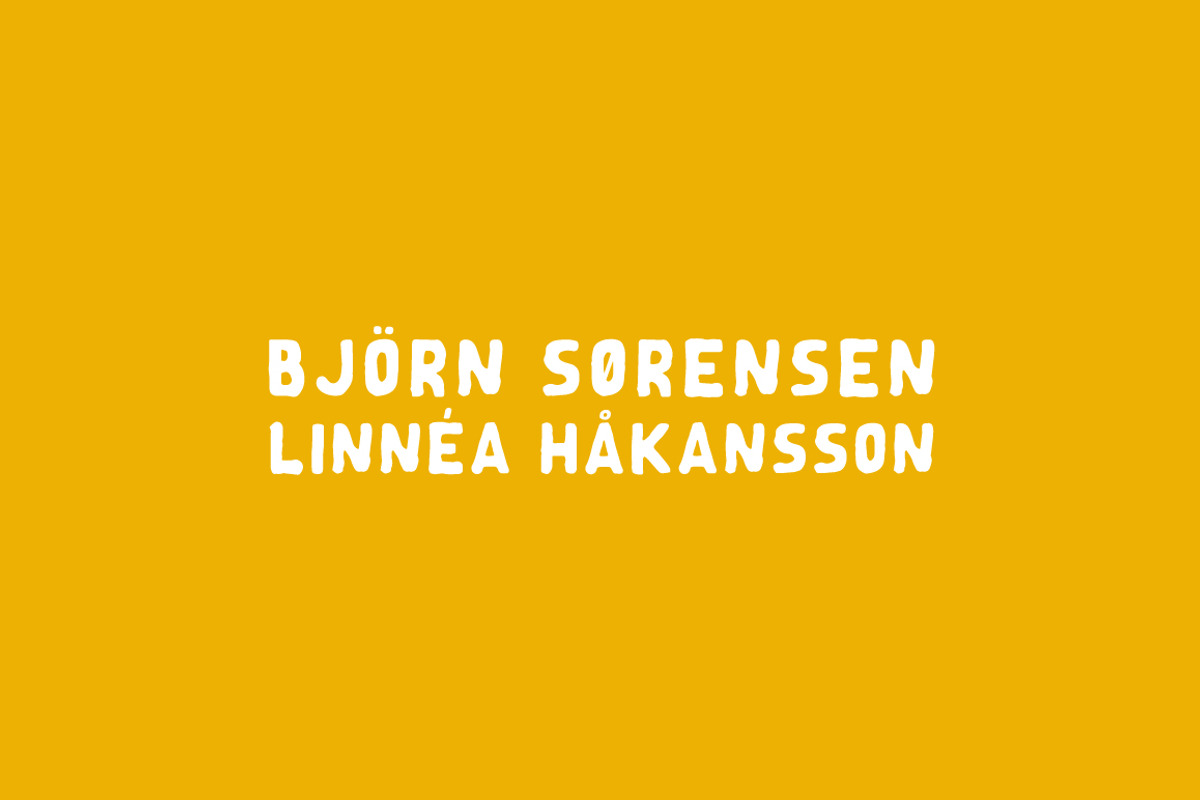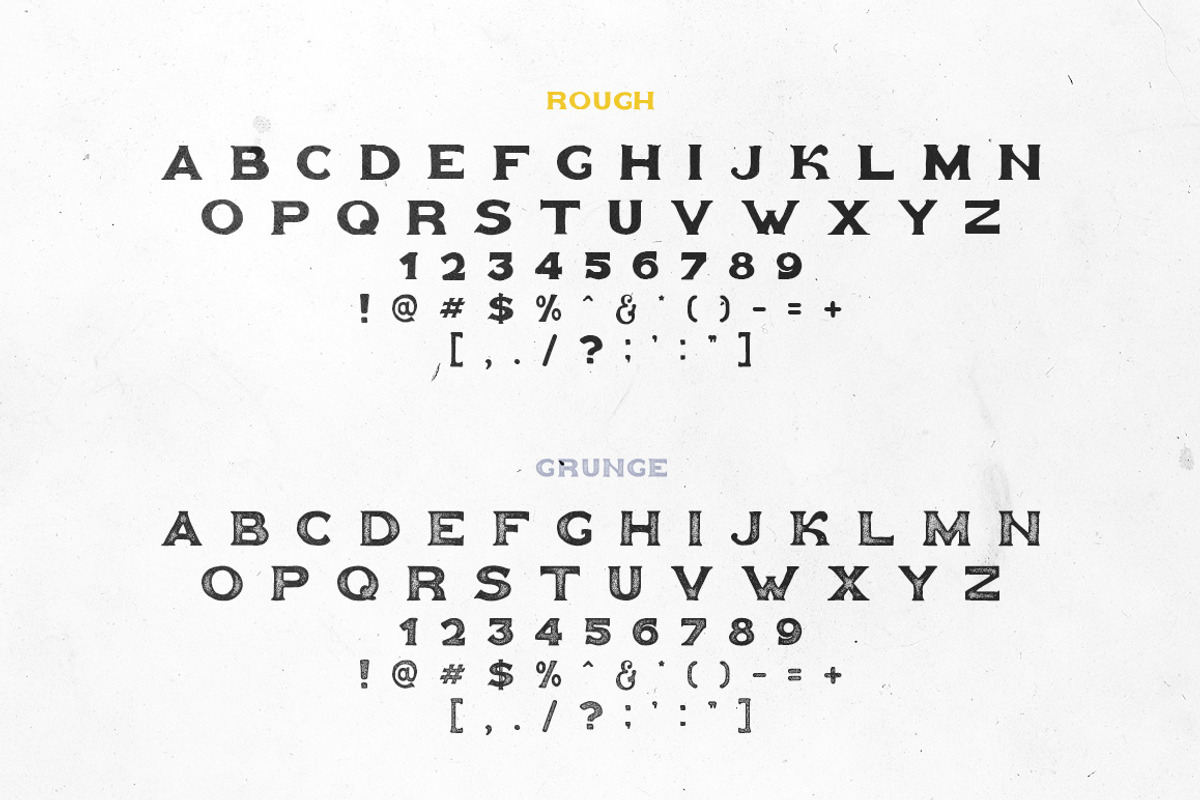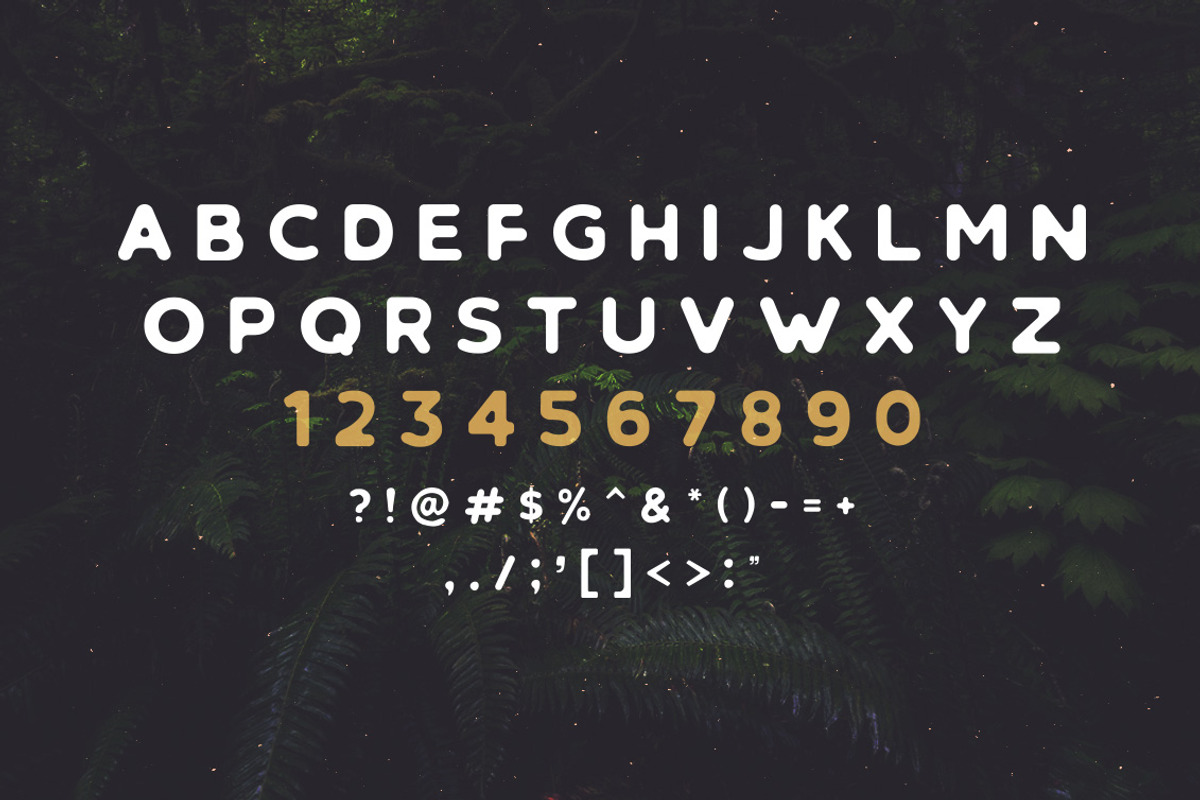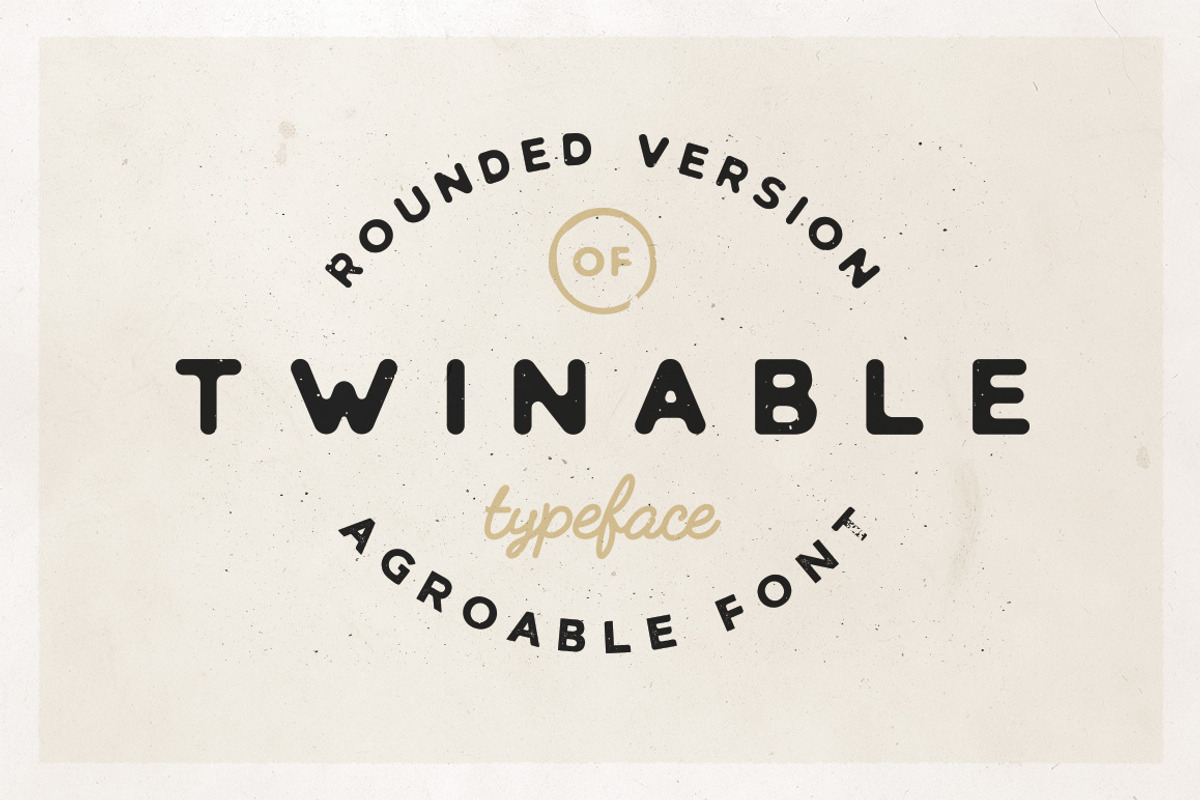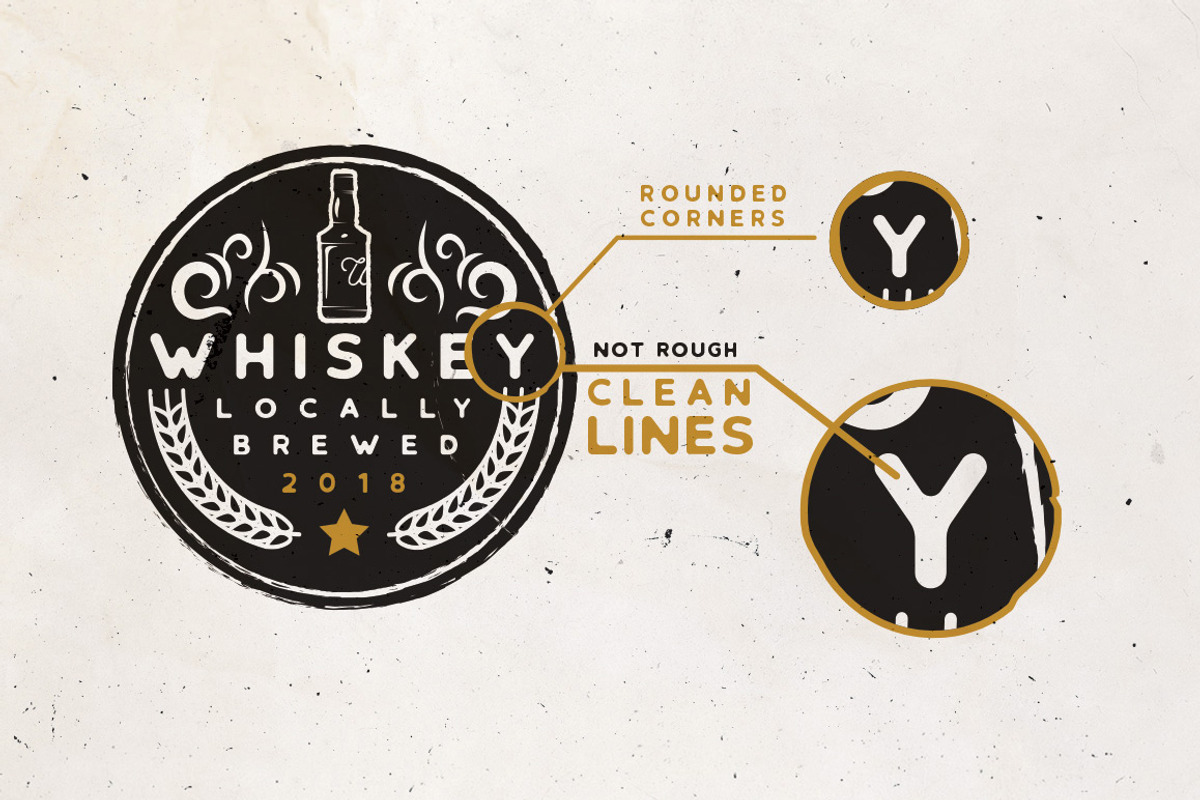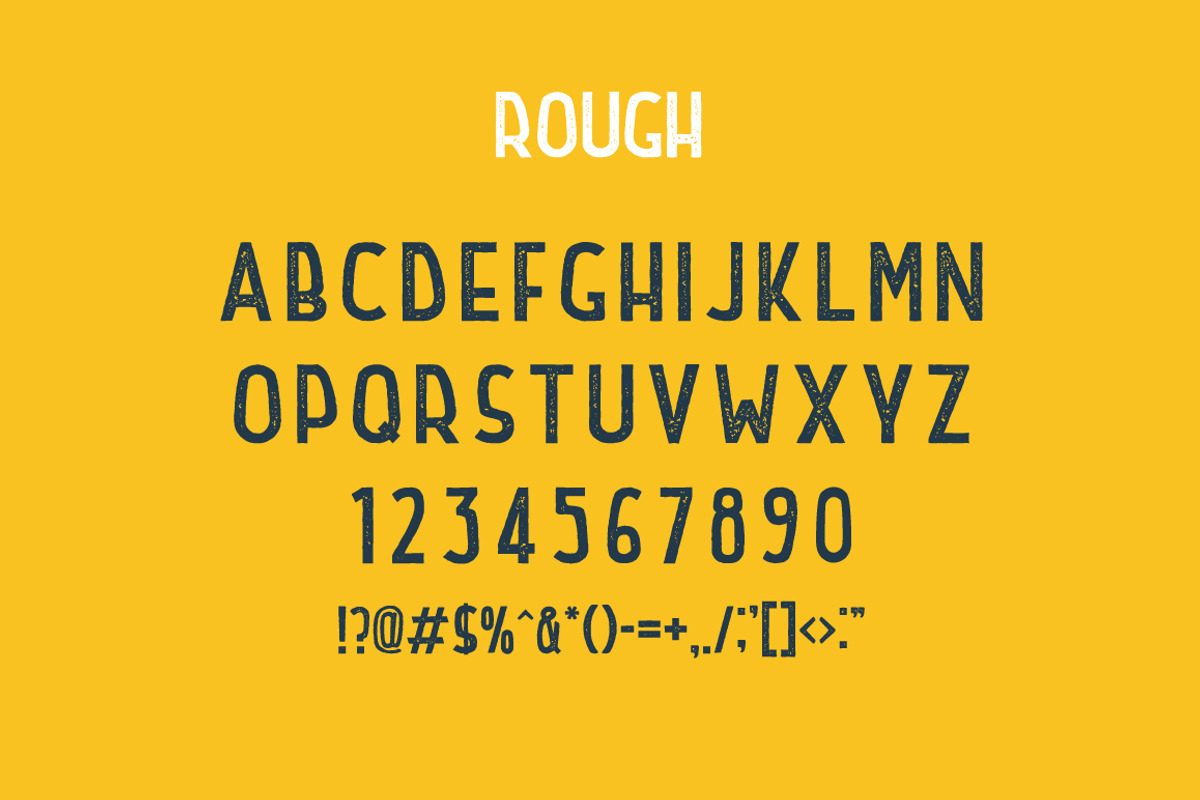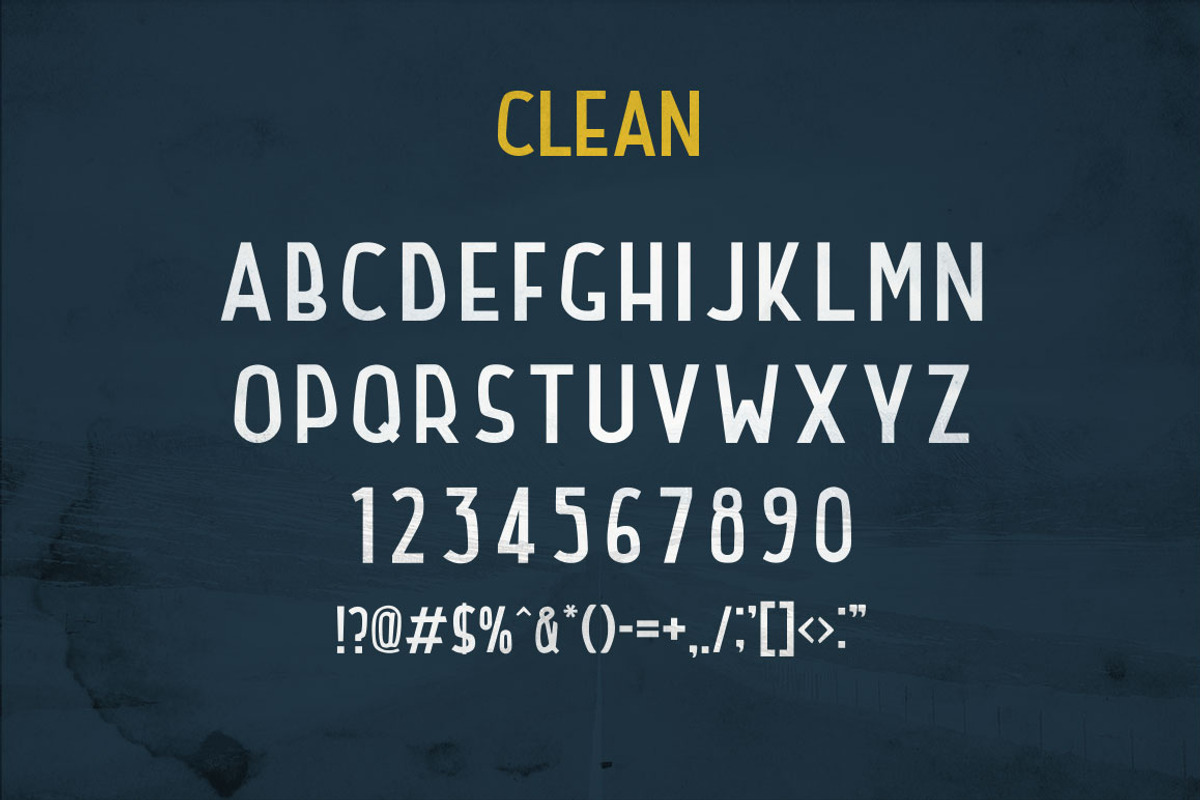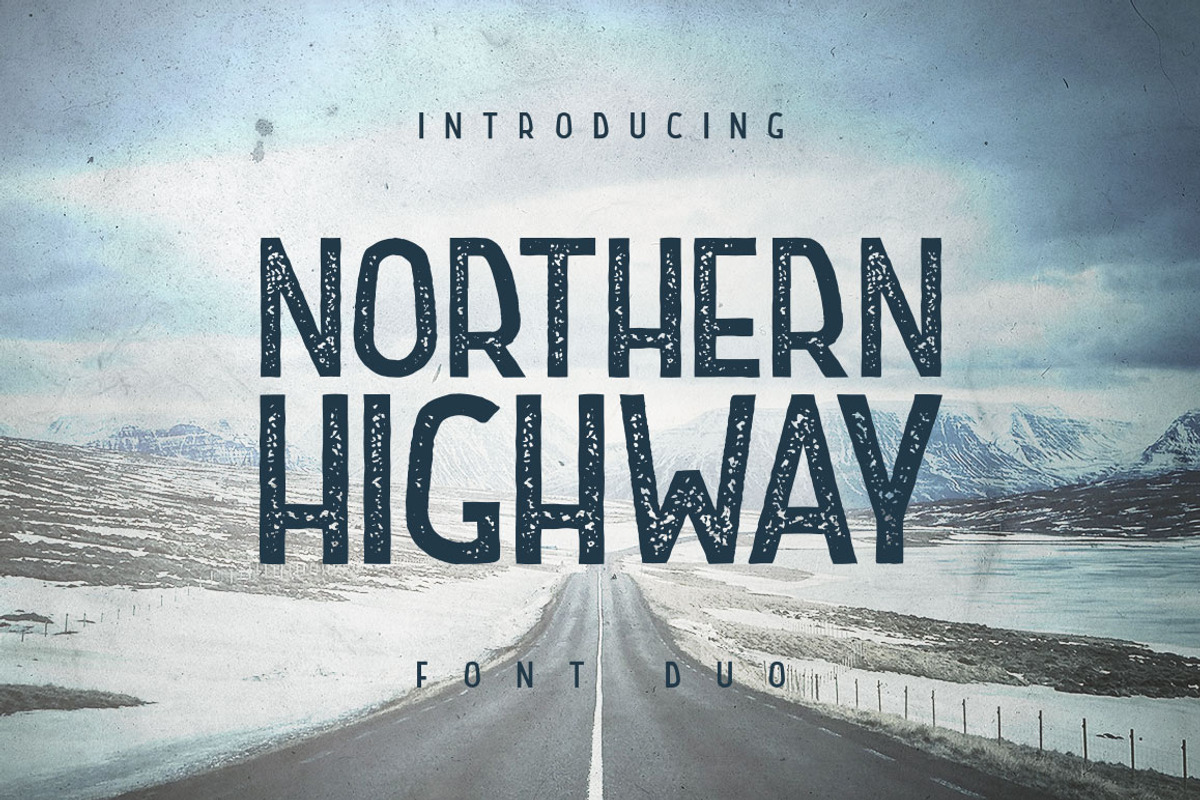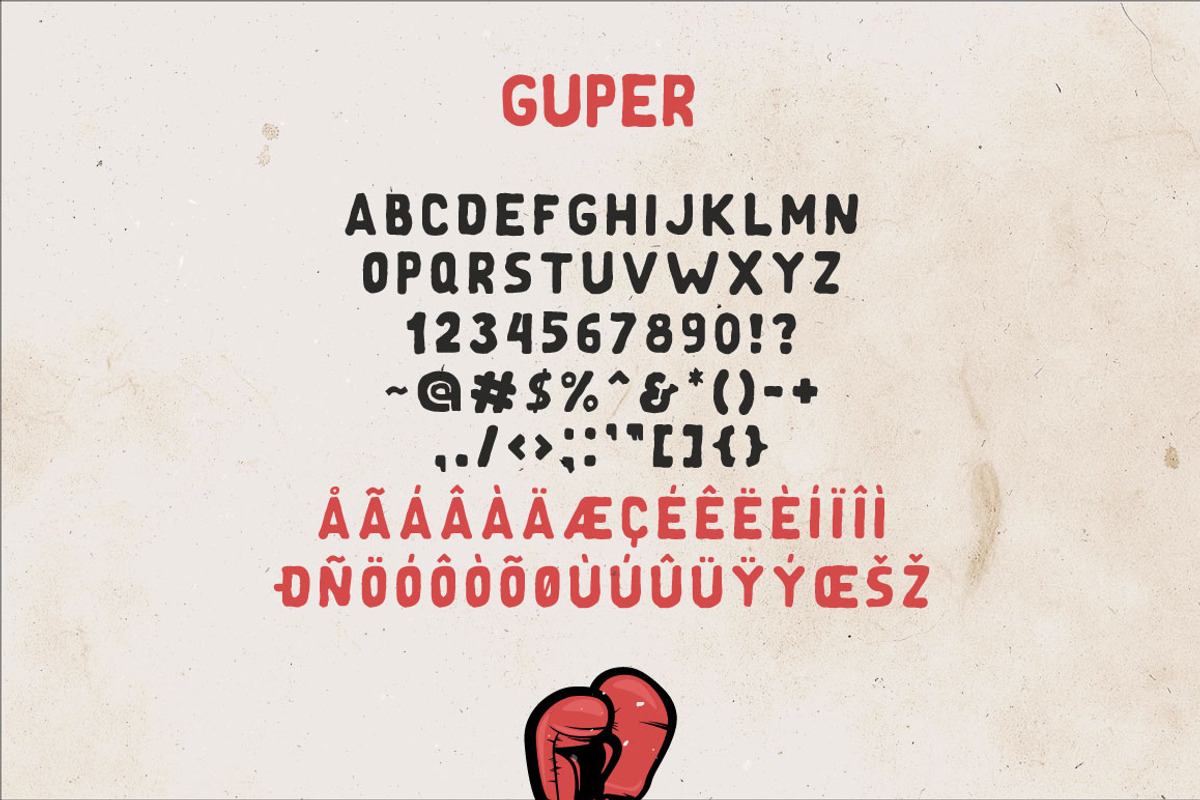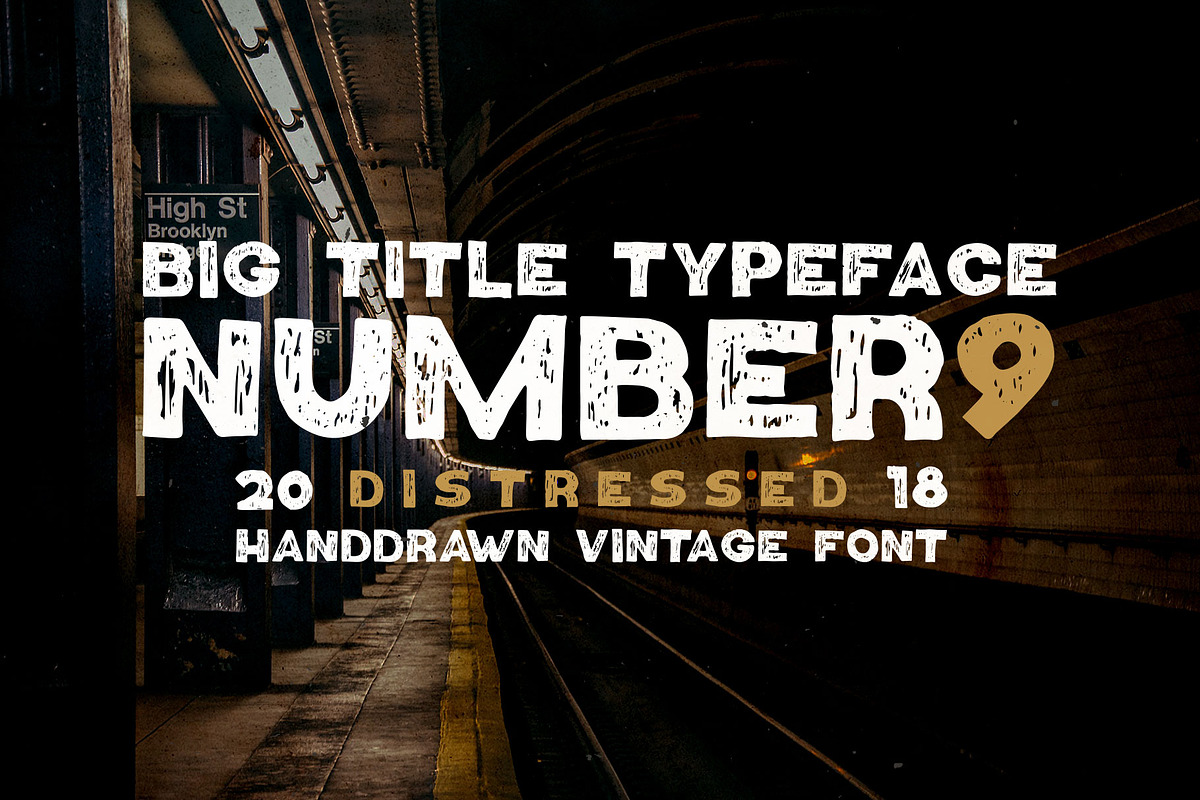
Retrospective Bundle - Fonts & Logos
All 12 badges were created in typical vintage style. They are perfect for branding projects, apparel design, t-shirt prints, social media, typography design, restaurant menus, labels, greeting cards and many more. Badges are fully editable and 100% vector (you may to edit all texts and stroke weight and scale badges as much you need without loosing sharpness).
The bundle includes these fonts:
- Balatype (ALL 4 STYLES) (https://creativemarket.com/seveniwe/1748878-Balatype-4-Hand-Drawn-Serif-Fonts)
- Northern Highway (ALL 2 STYLES) (https://creativemarket.com/seveniwe/1803224-Northern-Highway-Font-Duo)
- Agroable Clean (https://creativemarket.com/seveniwe/1573121-Agroable-Clean-Rough-Font)
- Twinable (https://creativemarket.com/seveniwe/1663826-Twinable-Rounded-Retro-Font)
- Goldfather Grunge (https://creativemarket.com/seveniwe/1630762-Goldfather-Typeface)
- Guper (https://creativemarket.com/seveniwe/1871600-Guper-Sans-Handcrafted-Font)
- Number9 (https://creativemarket.com/seveniwe/2185971-Number9-Handdrawn-Vintage-Font)